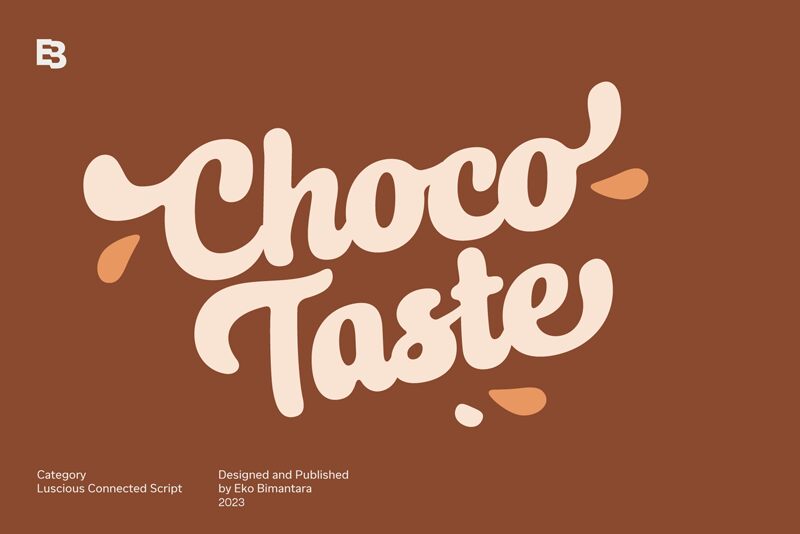
Choco Taste emerges as a delightful and expressive typeface, masterfully designed by Eko Bimantara. Its smooth brush strokes evoke a sense of artistic flair and casual charm, with bold and flowing lines that seem to dance across the page. This font's rich texture and dynamic form make it an excellent choice for projects that aim to convey warmth, friendliness, and a touch of whimsy.
Perfect for branding, packaging, or advertising campaigns seeking an approachable yet impactful visual statement, Choco Taste's inviting character ensures it stands out in any context. Its robust appearance also lends itself well to creative headings or eye-catching logos where personality is key.